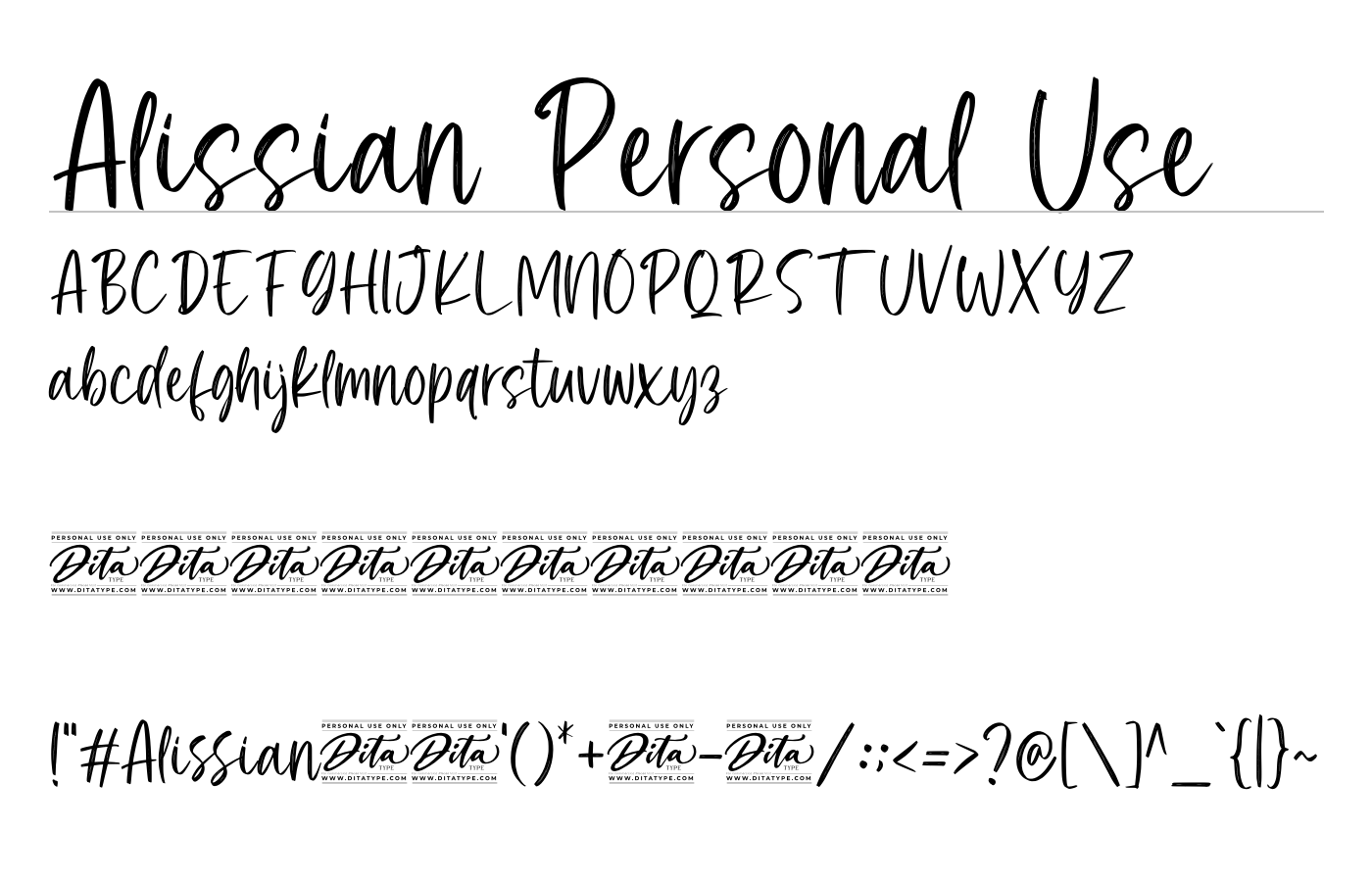
Alissian Personal Use is a playful and elegant handwritten script font that features a light to regular weight with a tall x-height, giving it a fresh and modern feel. Its fluid, natural strokes and slightly irregular letterforms create a personal, casual vibe, making it perfect for invitations, branding, social media, and other creative projects that seek a warm, approachable touch. This font works well in headlines and display text where a friendly yet stylish handwritten look is desired.
Alissian Personal Use Font
About Alissian Personal Use Font
| Font family | Alissian Personal Use Font |